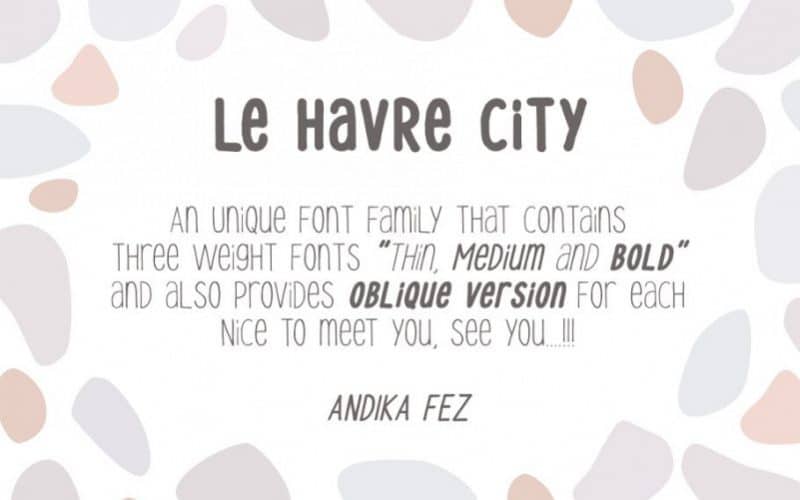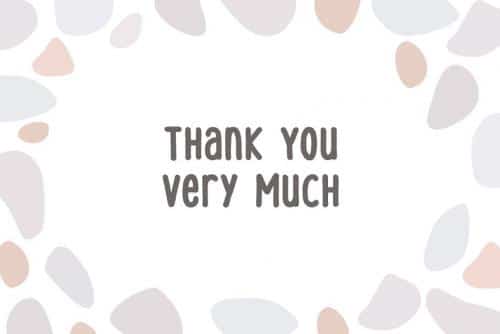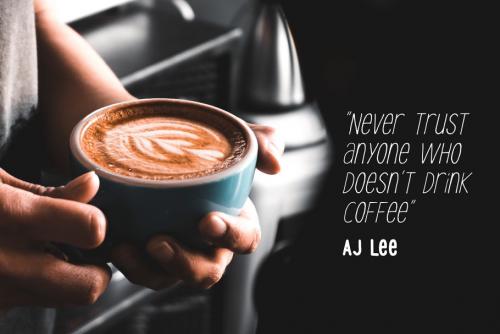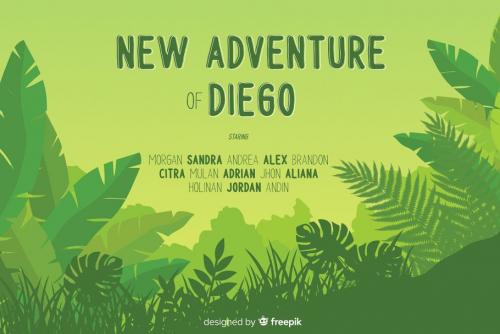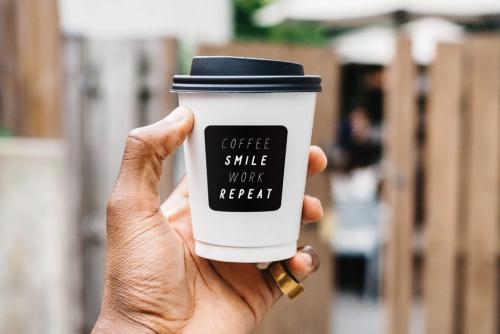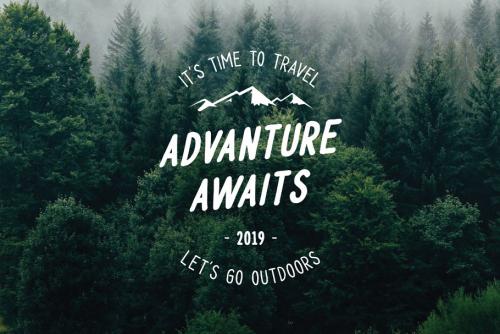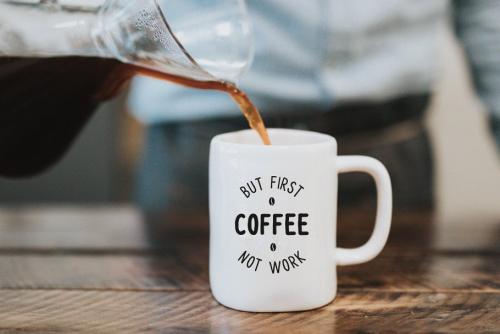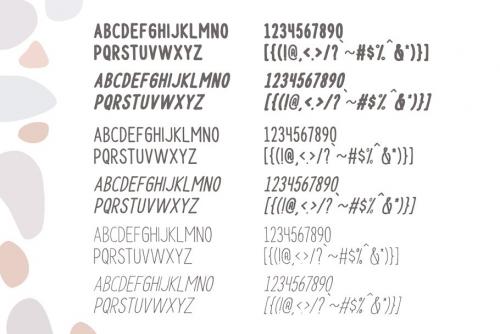
Le Havre City is an unique font family sans serif. Inspired by the handwriting of children, it’s super fun to play with and gives you an unique touch when use it
Le Havre City includes three weights and oblique version of each.
- Designer: Andika Fez